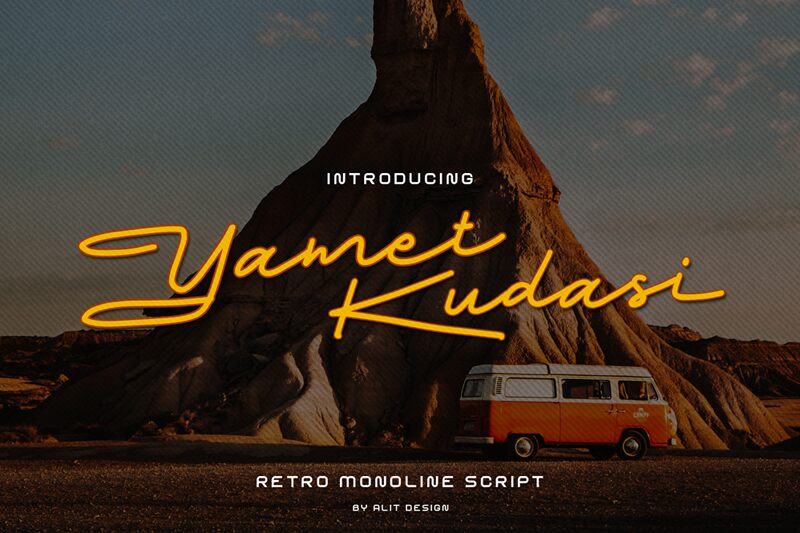
Yamet Kudasi is a delightful handwritten font designed by Alit Design. With its light weight and semi-expanded width, this font exudes elegance and charm. Its retro monoline style adds a touch of nostalgia to any project. Perfect for wedding invitations, greeting cards, or branding materials, Yamet Kudasi will captivate your audience with its graceful strokes and unique character. Whether you're creating a vintage-inspired logo or designing a whimsical poster, this versatile font will effortlessly elevate your work to new heights of creativity. Let Yamet Kudasi unleash your imagination and bring your designs to life.
Yamet Kudasi